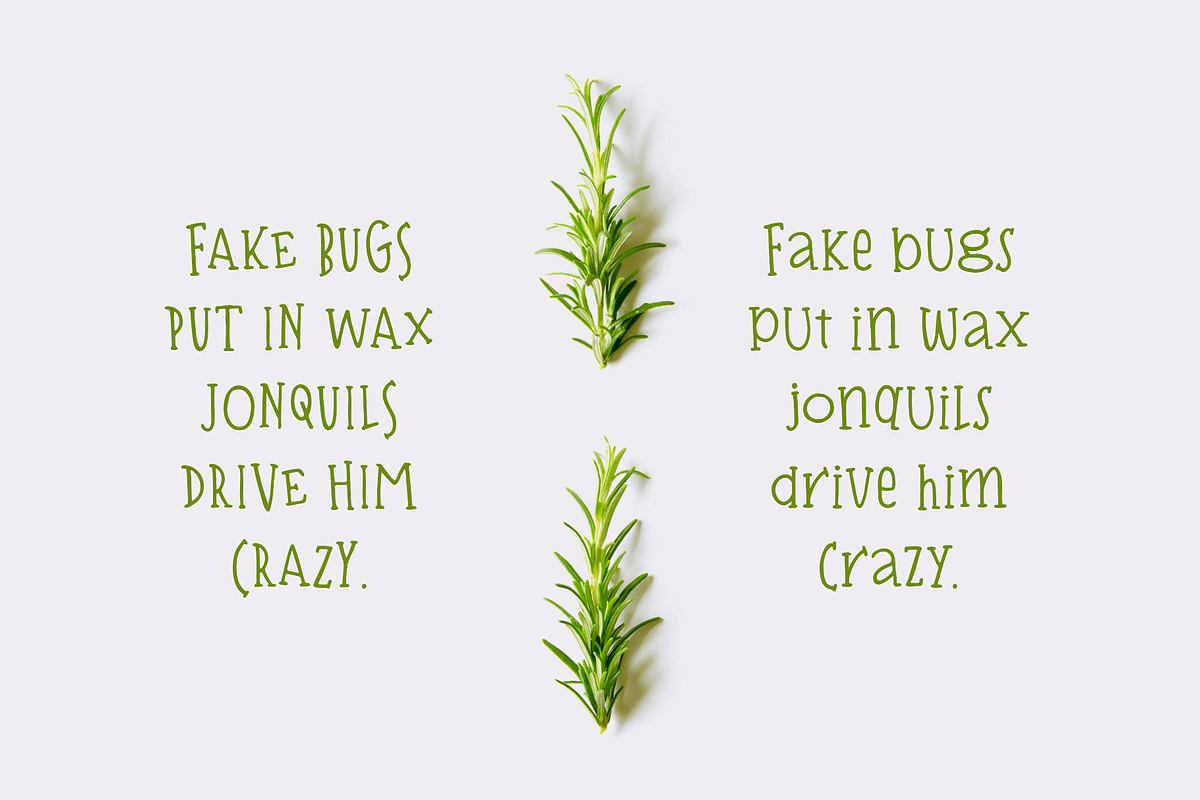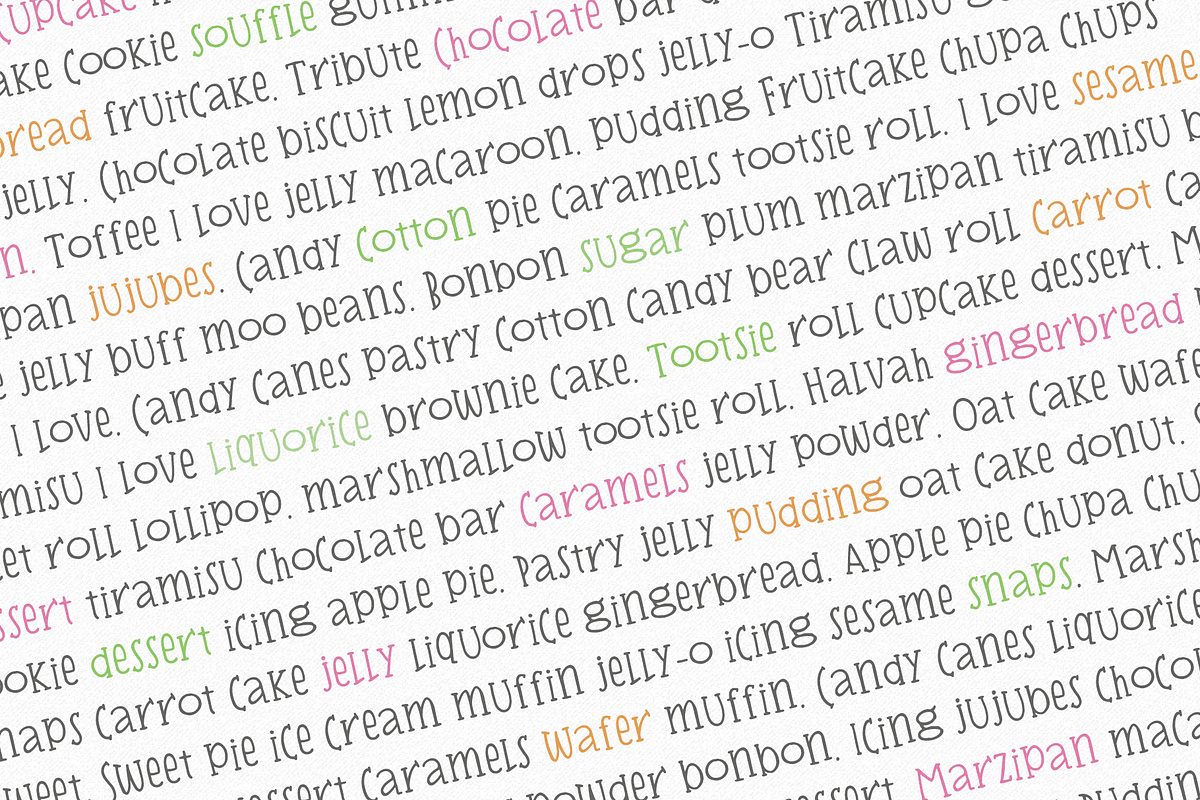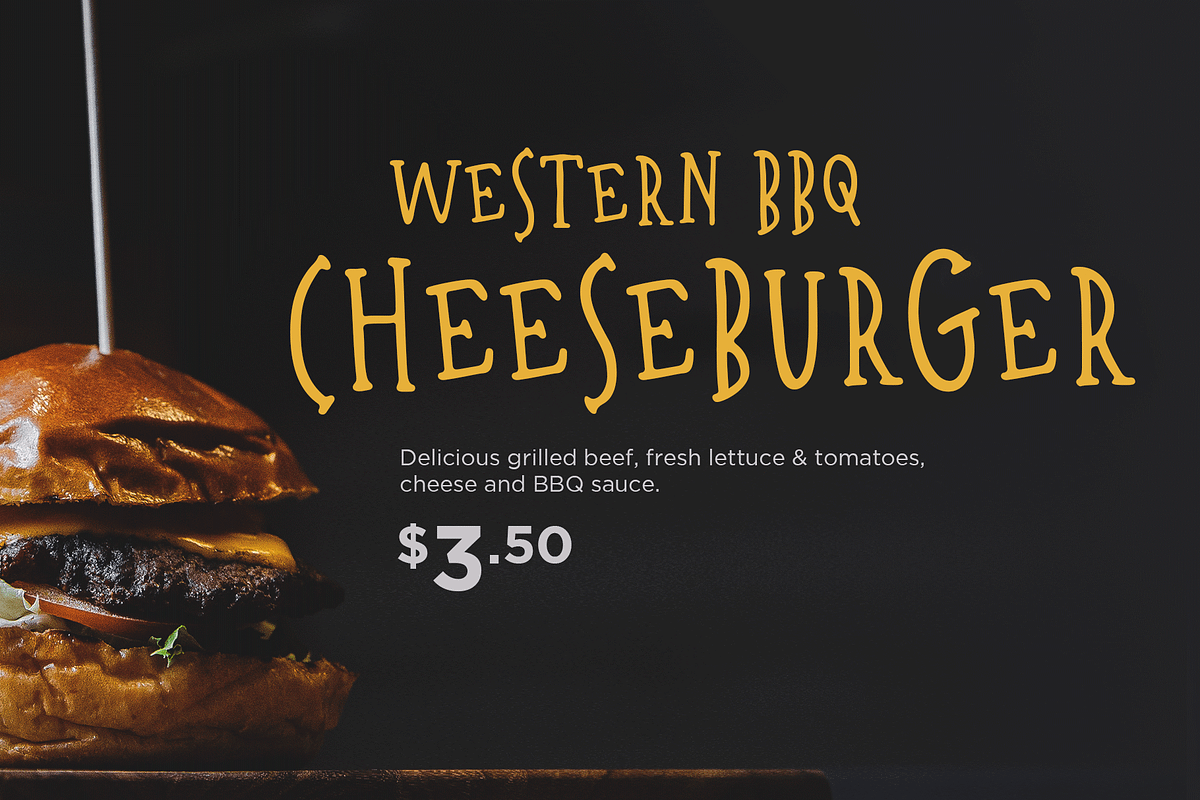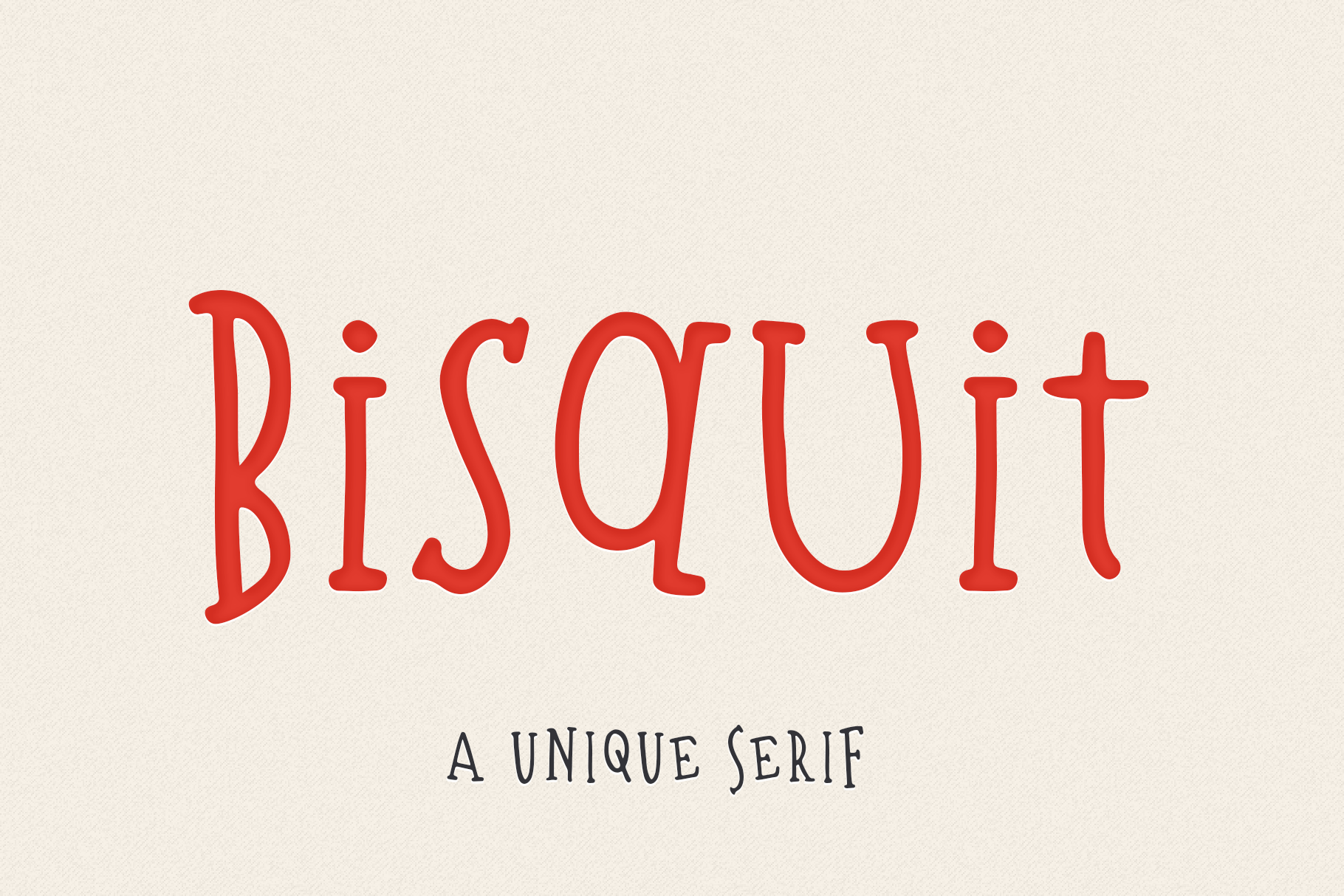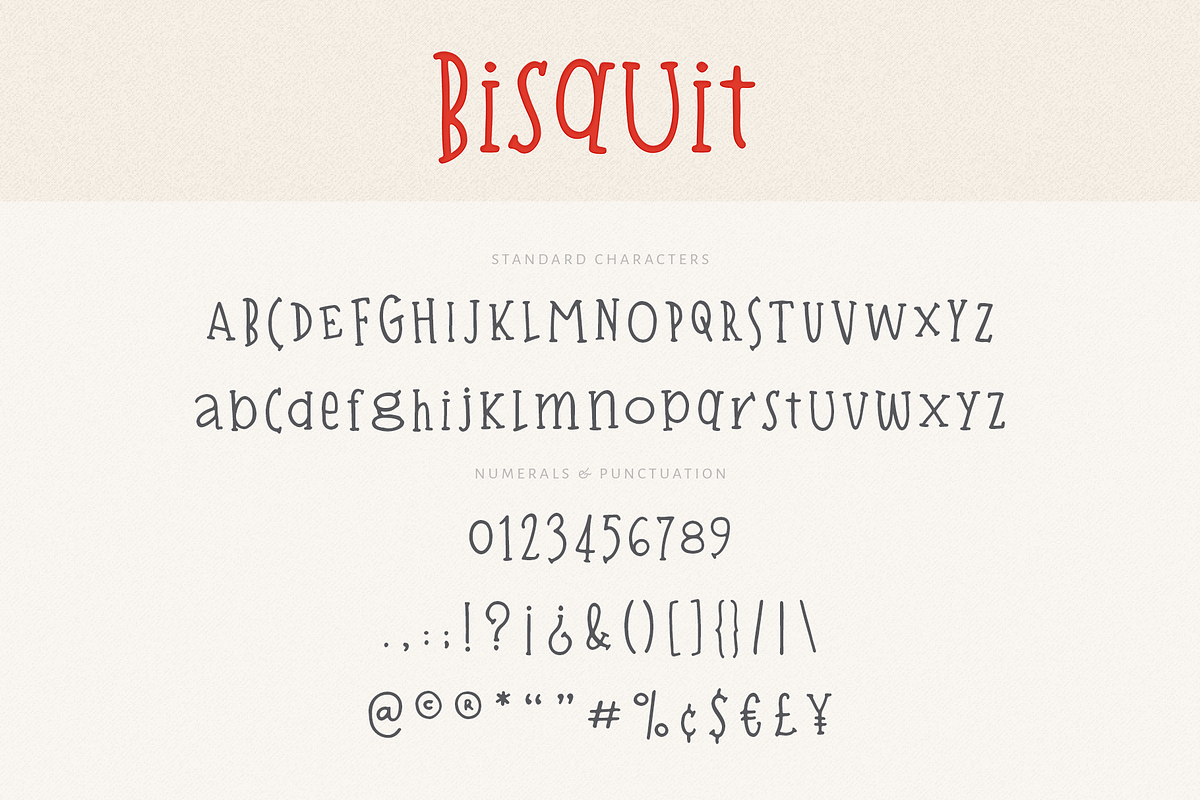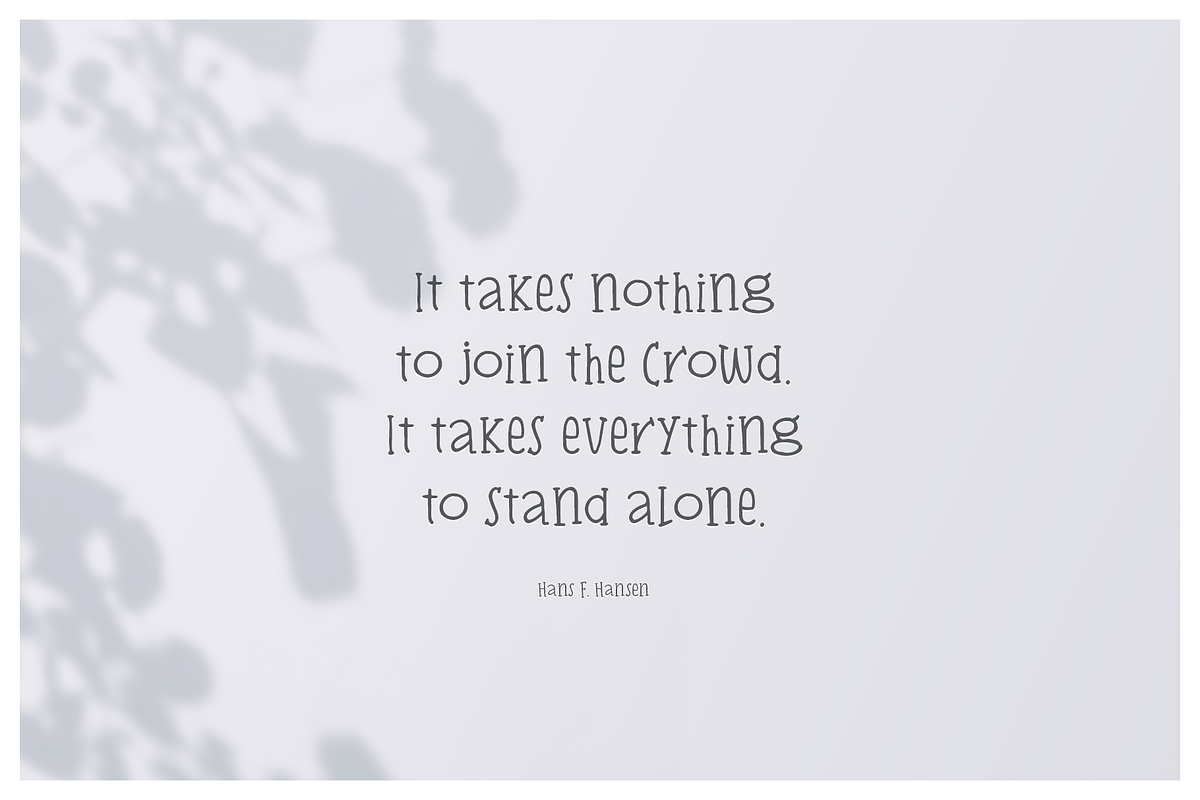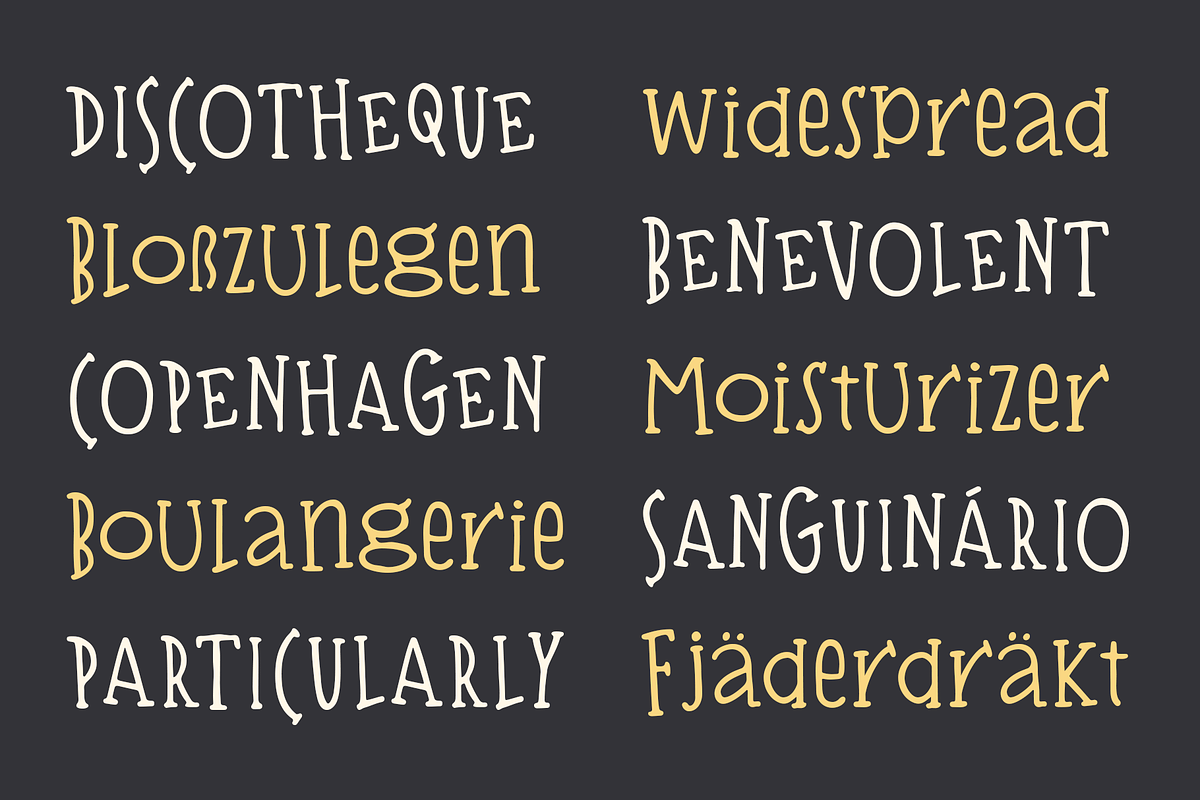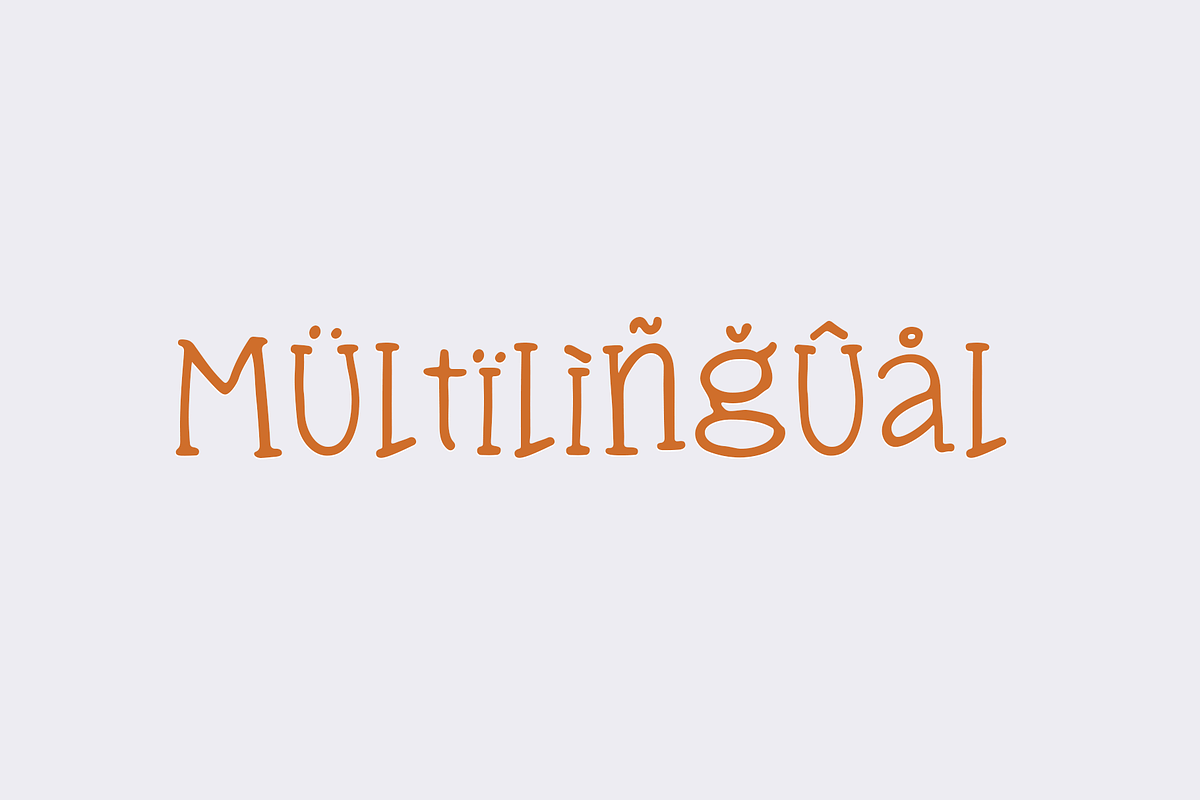
Bisquit | A Unique Serif Font
Bisquit is a hand lettered serif font with a unique look. It’s quirky and fun character really makes it stand out, so it’s ideal as a display typeface.
Whimsical, playful and beautiful in its own right, Bisquit works equally well with short to mid-length text. With its inconsistent ascenders and equally diverse but high x-heights, Bisquit is excellent if you want to create a block of text without the stern look that often comes with strictly formatted copy, such as in children’s books, poetry, long quotes, etc.